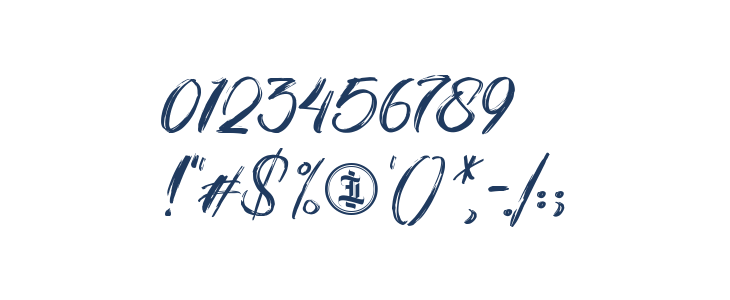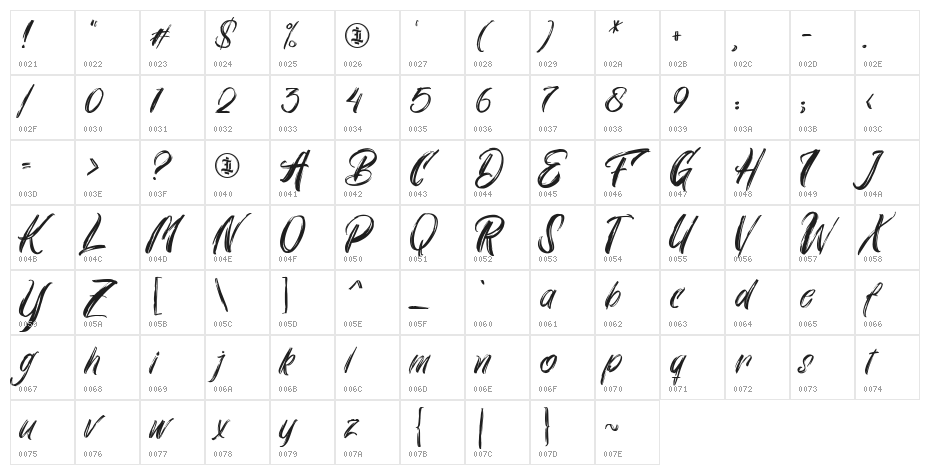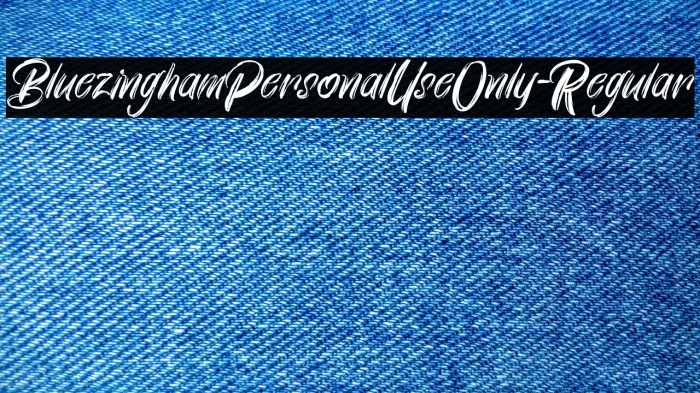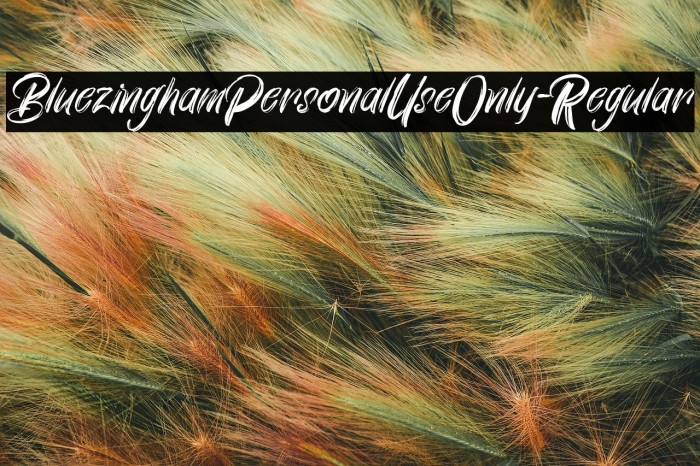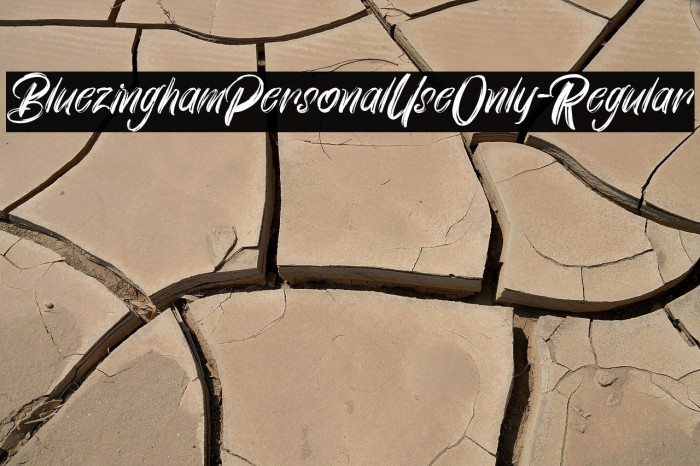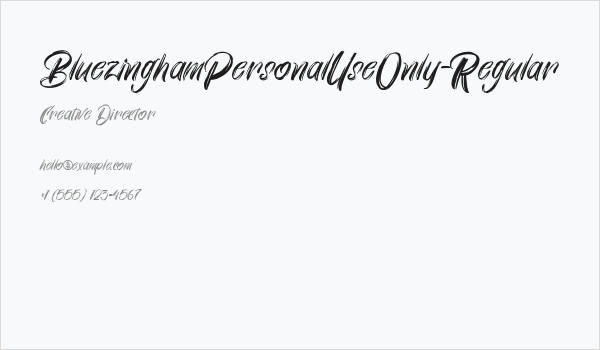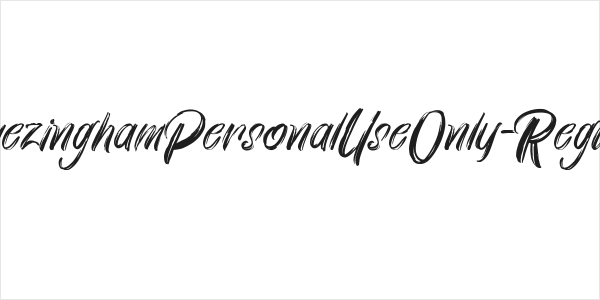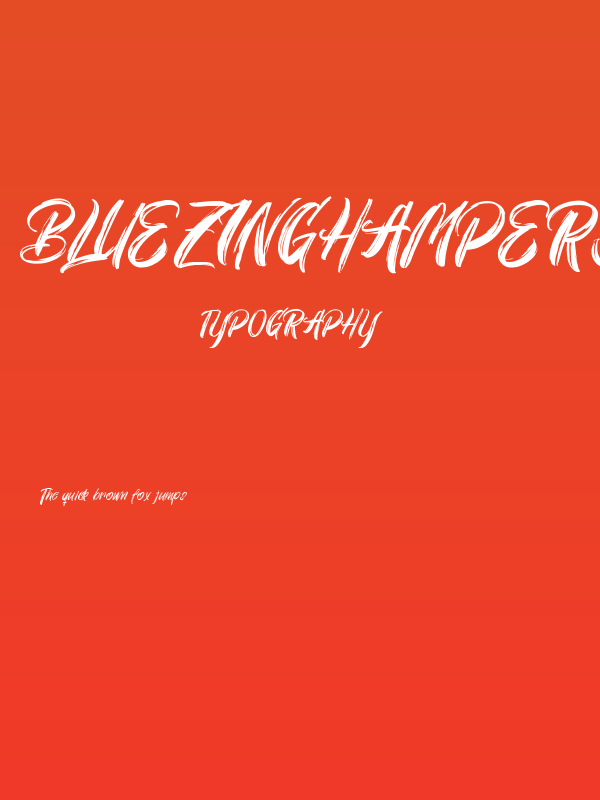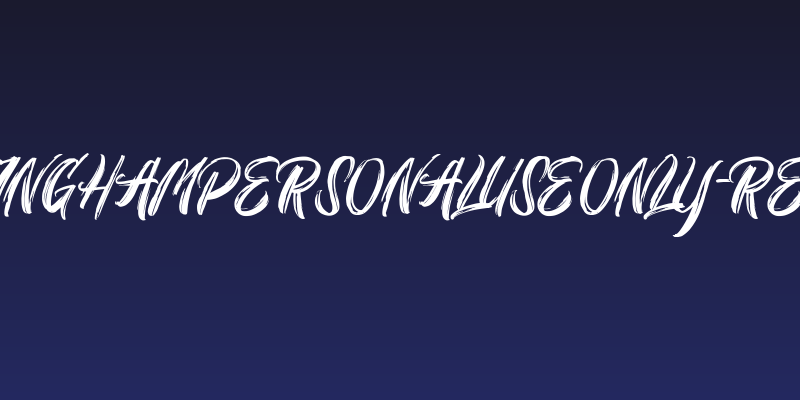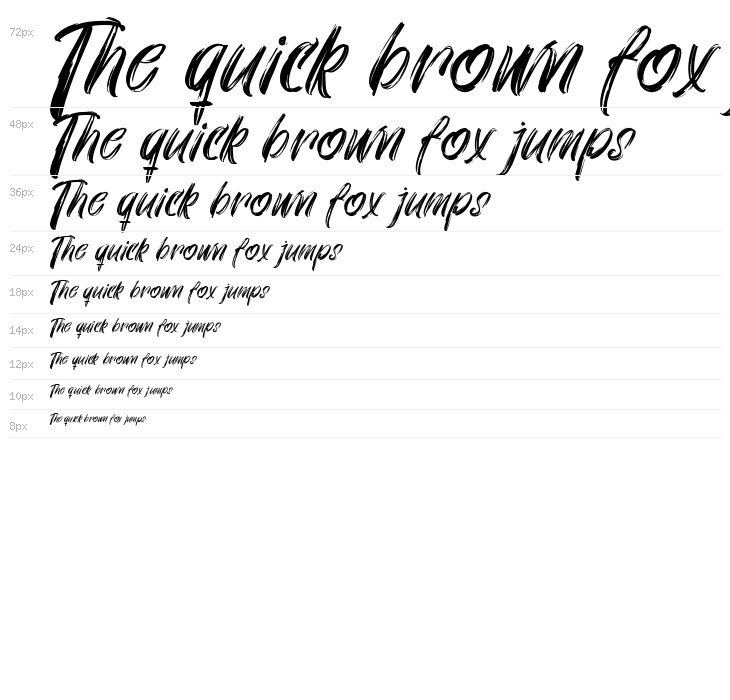
BluezinghamPersonalUseOnly-Regular Font
BluezinghamPersonalUseOnly-Regular Description
This font exhibits a bold, expressive style with a hand-drawn appearance. The letters are characterized by sweeping strokes and dynamic curves, giving it an energetic and artistic feel. The uppercase and lowercase letters maintain a consistent flow, with some letters featuring exaggerated loops and flourishes. The numbers and special characters are equally expressive, complementing the overall aesthetic. This font's brush-like texture and varying stroke widths add depth and personality, making it stand out in any design.
| Use Case | Logos, Headlines, Artistic designs |
| Proposed Projects | Ideal for creative projects such as posters, branding, invitations, and artistic designs where a dynamic and personal touch is desired. |